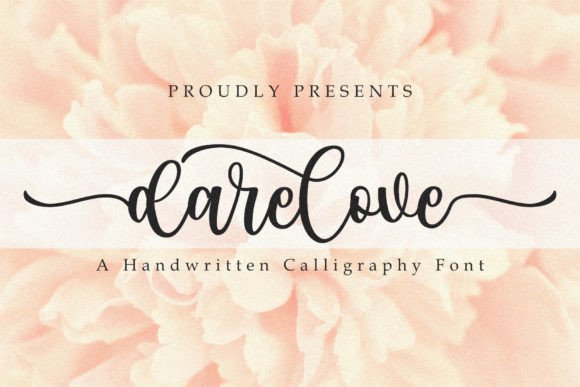
Darelove Font: The Ultimate Modern Calligraphy Font for Stunning Wedding Designs
In the world of typography, calligraphy fonts have always been a popular choice for wedding designs, invitations, and other romantic-themed projects. Among the numerous calligraphy fonts available, Darelove Font stands out as a modern and elegant option that can add a touch of sophistication and charm to your designs. In this article, we’ll explore the features and benefits of Darelove Font, and why it’s an excellent choice for your wedding designs and more.
What is Darelove Font?
Darelove Font is a modern calligraphy font that boasts beautiful and unique ligatures and alternates. Inspired by the elegance and romance of handwritten letters, Darelove Font is perfect for creating stunning wedding designs, invitations, and other projects that require a touch of sophistication. This font is designed to provide a smooth and natural flow, making it easy to read and visually appealing.
Key Features of Darelove Font
- Modern Calligraphy Style: Darelove Font features a modern calligraphy style with a smooth and natural flow.
- Beautiful Ligatures and Alternates: This font comes with over 100 ligatures and alternates, allowing you to create stunning combinations.
- Multilingual Support: Darelove Font supports multilingual characters, making it suitable for use in different languages.
- Uppercase and Lowercase Letters: The font includes both uppercase and lowercase letters, numbers, and symbols.
- Swashes and Ornaments: Darelove Font comes with swashes and ornaments to add an extra touch of elegance to your designs.
Why Choose Darelove Font for Your Wedding Designs?
When it comes to wedding designs, the font you choose can make a significant impact on the overall aesthetic of your project. Darelove Font is an excellent choice for several reasons:
- Elegance and Sophistication: Darelove Font exudes elegance and sophistication, making it perfect for wedding designs and other romantic-themed projects.
- Unique and Beautiful Ligatures: The font’s unique ligatures and alternates will add a touch of charm and personality to your designs.
- Professional and Elegant Look: With Darelove Font, you can achieve a professional and elegant look that will make your designs stand out.
- Experiment with Ligatures and Alternates: Explore the font’s ligatures and alternates to create stunning combinations.
Tips and Tricks for Getting the Most Out of Darelove Font
To get the most out of Darelove Font, here are some tips and tricks:
- Experiment with Different Sizes and Colors: Play around with different sizes and colors to find the perfect combination for your design.
- Use Swashes and Ornaments: Add an extra touch of elegance to your designs with swashes and ornaments.
- Mix and Match with Other Fonts: Combine Darelove Font with other fonts to create a unique and visually appealing design.
In conclusion, Darelove Font is an excellent choice for wedding designs and other romantic-themed projects. With its modern calligraphy style, beautiful ligatures and alternates, and multilingual support, this font is sure to add a touch of elegance and sophistication to your designs. Whether you’re a professional designer or a DIY enthusiast, Darelove Font is easy to use and install, and will give your projects a professional and elegant look.